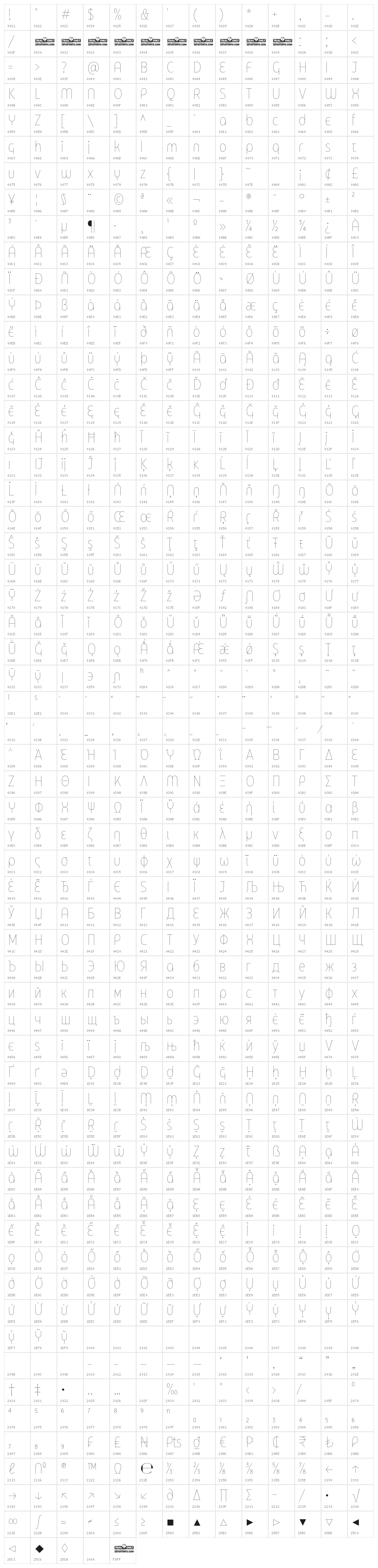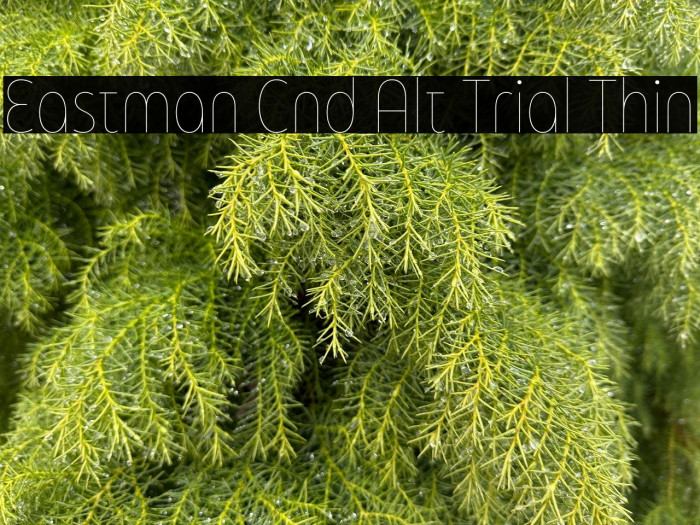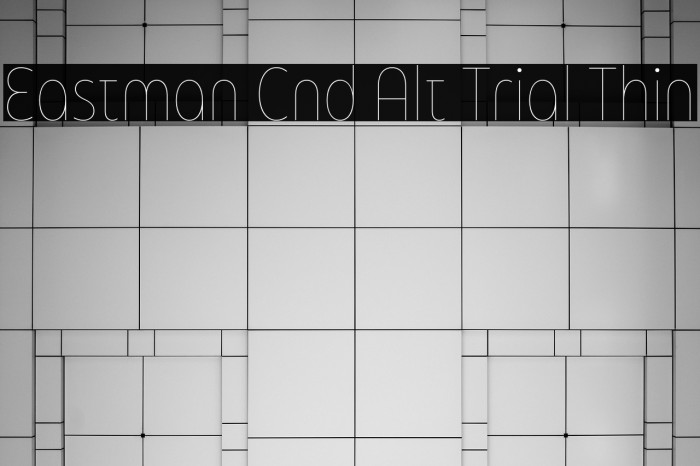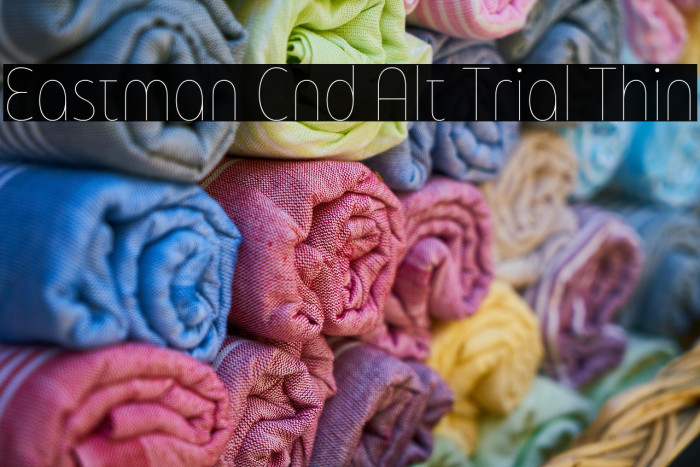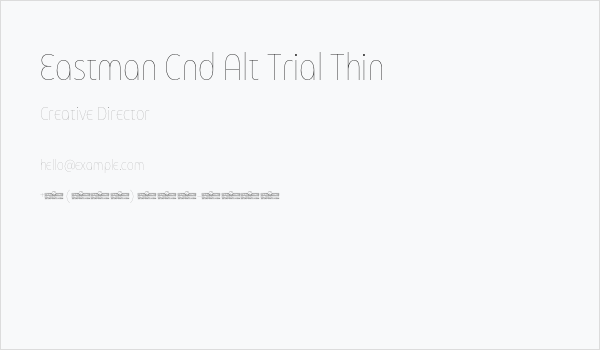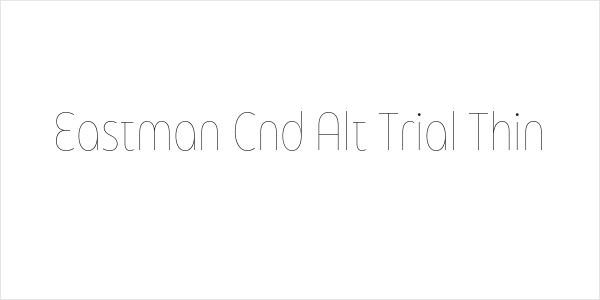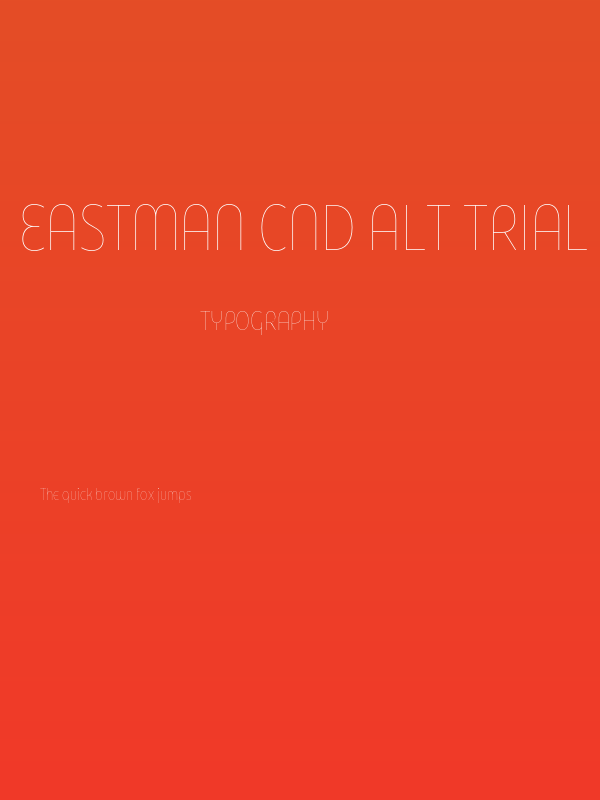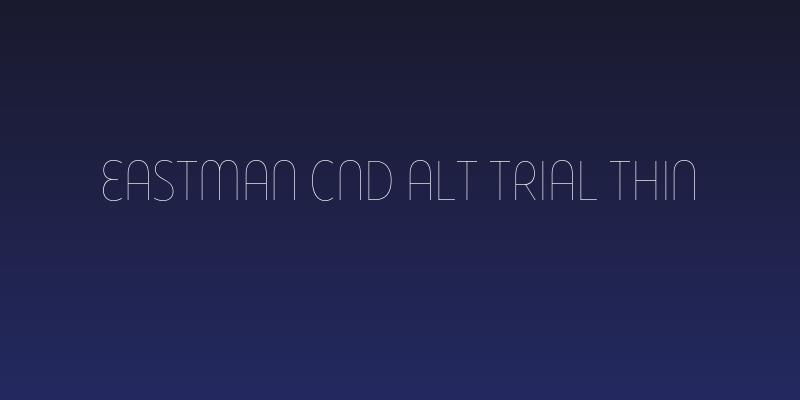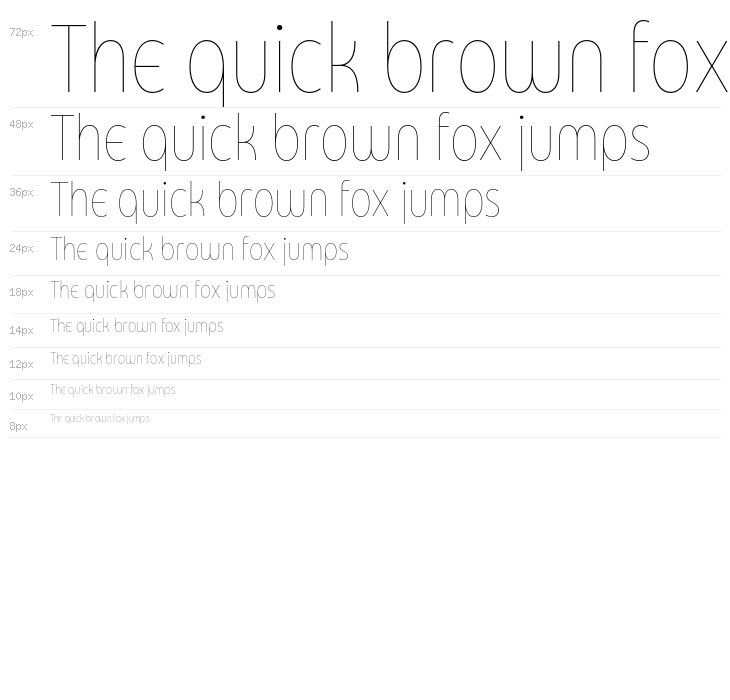
Eastman Cnd Alt Trial Thin Font
Eastman Cnd Alt Trial Thin Description
This font features a sleek and modern design with thin, elongated letterforms that convey a sense of elegance and minimalism. The characters are crafted with a geometric precision, offering a clean and contemporary look. The uppercase and lowercase letters maintain a consistent height, contributing to a uniform appearance. The numerals and special characters are designed to match the overall aesthetic, ensuring a cohesive visual experience. The font's thin strokes and open counters enhance readability while maintaining a stylish and sophisticated feel.